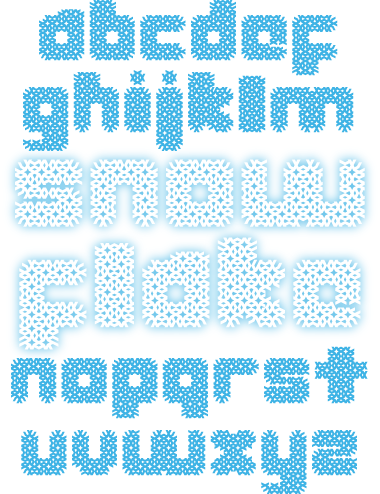
Snowflake
I already had warned you: In the coming days, we will see some very funny specials (and so very excellents!) fonts ... Here is a great sample. Don't miss a minute, people.
@funk_king: It's very difficult compete against you. Be gracious, please. Beautiful work, again.
thank you, elmoyenique. you are funny. i dare say, i am not worried in the least about my fellow fontstructors rising to the occasion... or maybe that should be, i am worried :) well, i've done 3 and although i can't say i've got it out of my system; i can say that i am content with my current entries. and like you, i look forward to seeing some amazing work that may lead me back to the drawing board :)
Good work fk...sweet sample too.
or should I say "cool" sample. :)
thanks, aphoria. i can chill now (for a minute) :)
This reminds me an anecdote : i was about 7 years old and we were at school. Thinking making a joke, the mistress asked who wanted to make paper cut and who wants to have an orthograph lesson. I was the only one to chose the orthograph lesson, making everybody laugh. And she gave me the orthograph lesson when everybody had fun with papercut, i hated so much these kinds of manual activities. And now i form letters with bricks, where's the error ?
By the way, very evocative pattern for sure Funk_King :0)
@neurone error. The error is in the neurone apparently ;) Oh, and by the way I like your interpretations of my 'wavy curves' or 'curvy waves' or whatever I called it, and am flattered too.
And about the font I should be commenting on, I really like how it looks complex and irregular on small sizes, but at big sizes you see the uniformity. Just like real snow.
I would just like to add that after being away from my favorite playground for quite a while and finally coming back, I'm very glad to see dear old FK being as creative as ever. Nice one!
@neurone-funny story. it sounds like you have always been and will always be neurone error :) i'll sure that orthography info will come in handy as you continue to develop. thanks.
@cmunk-thanks, it was fun doing and agree it was that icicle/snowflake effect at small and large sizes.
@cay0-thanks and welcome back. it's good to see you and hope to see some cool new stuff from you soon.